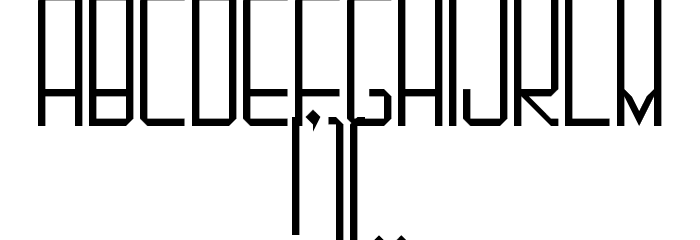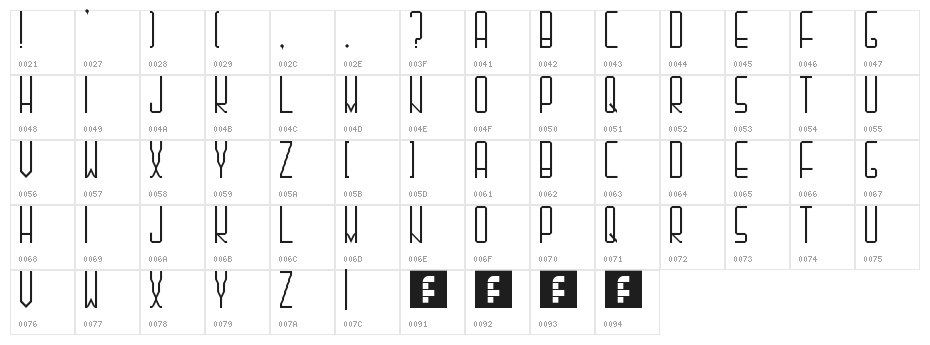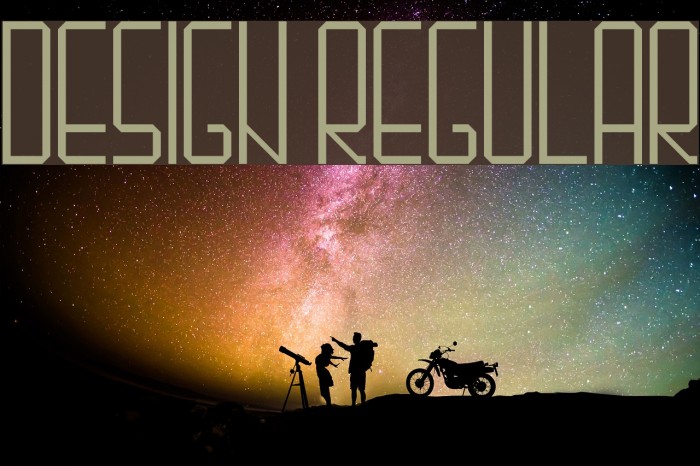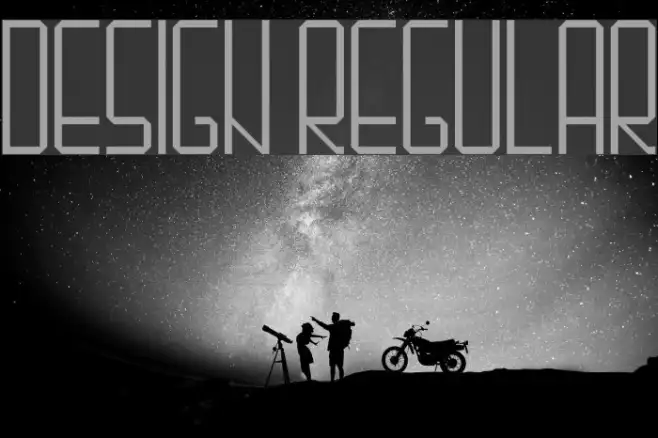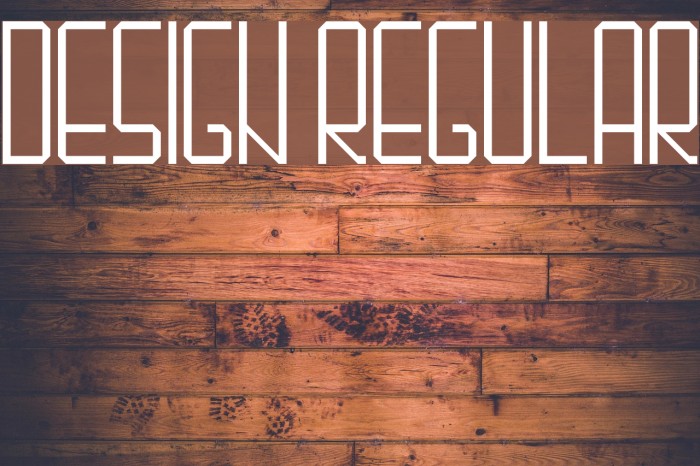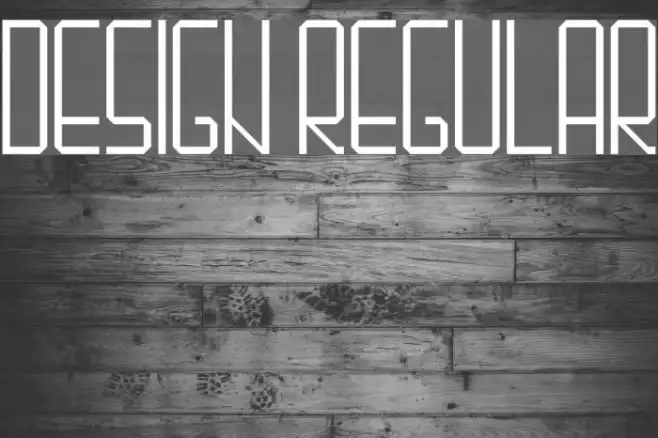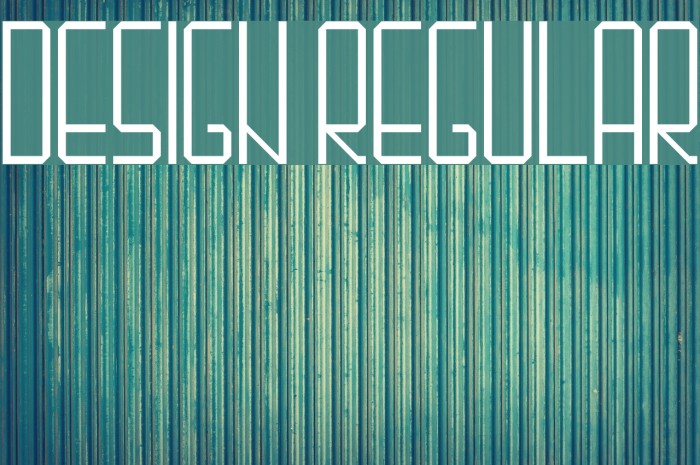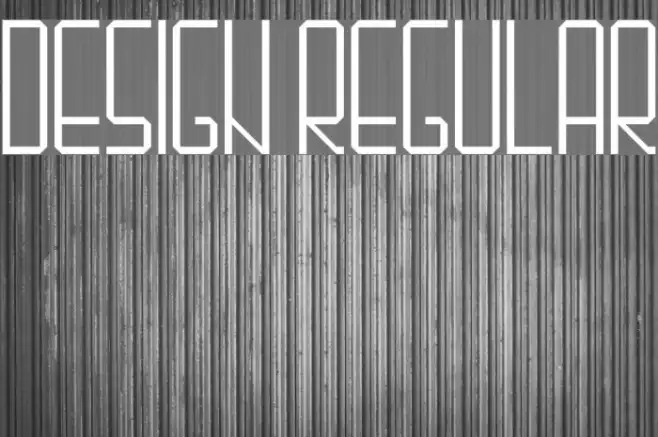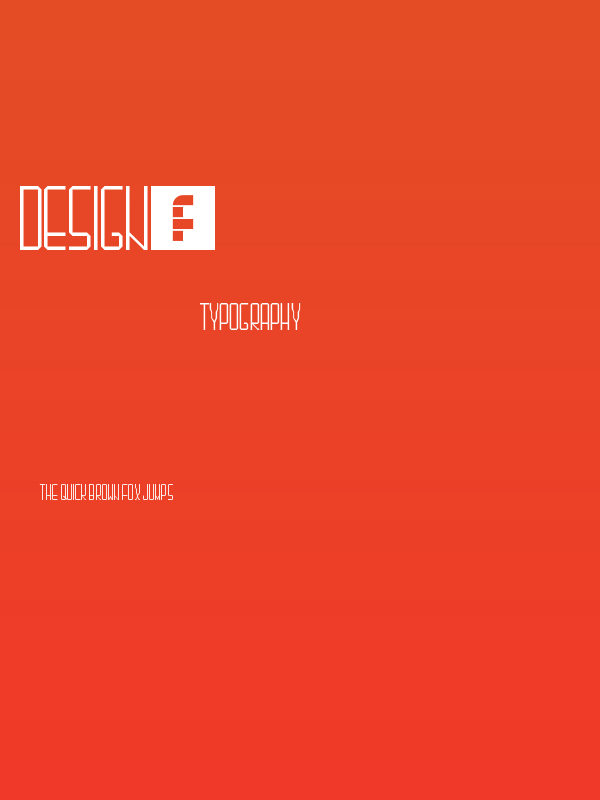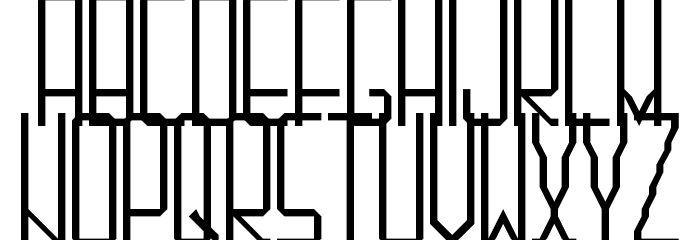
Design#1 Regular Font
Design#1 Regular Description
This font features a highly geometric and angular design, characterized by its sharp, straight lines and minimal curves. The letters are constructed with a consistent stroke width, giving it a monospaced appearance. The overall look is modern and technical, with a futuristic vibe. The uppercase and lowercase letters maintain a uniform height, contributing to a clean and organized aesthetic. The numbers and special characters follow the same design principles, ensuring a cohesive look across all glyphs. This font's unique style makes it stand out, ideal for projects that require a distinctive and contemporary touch.